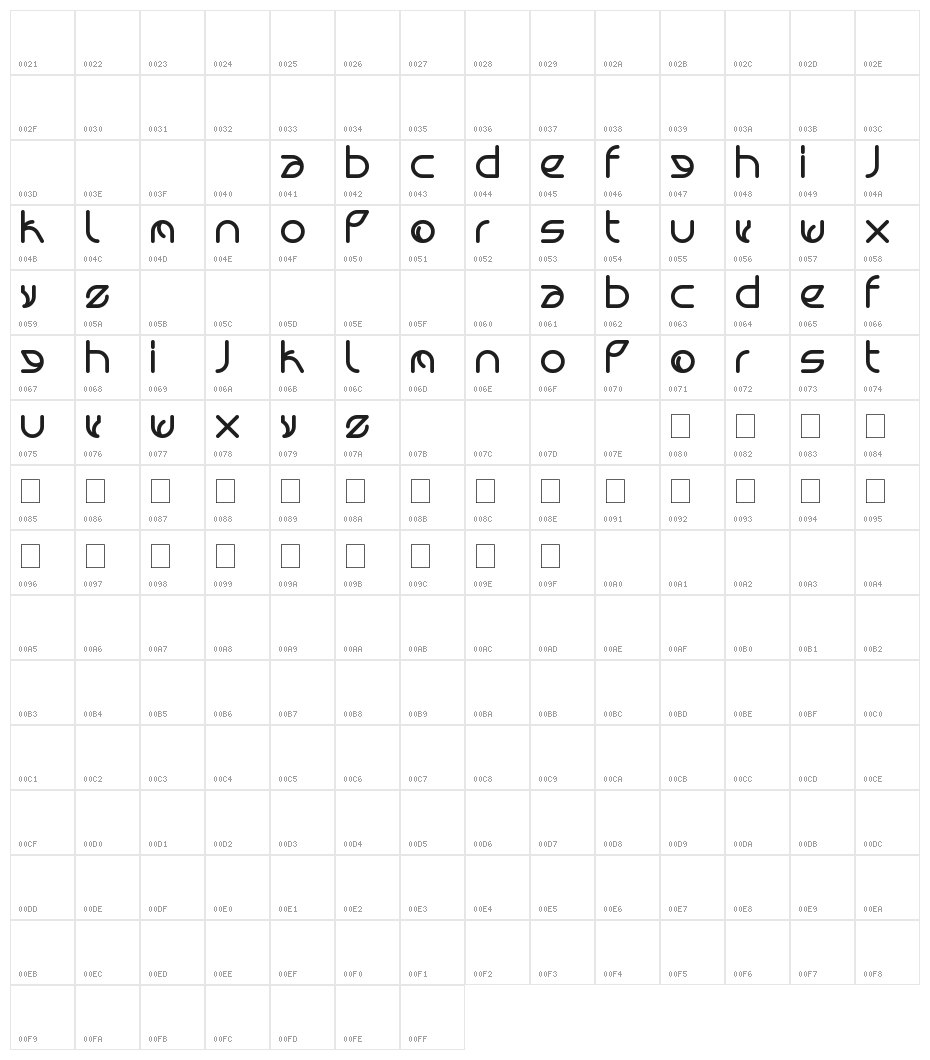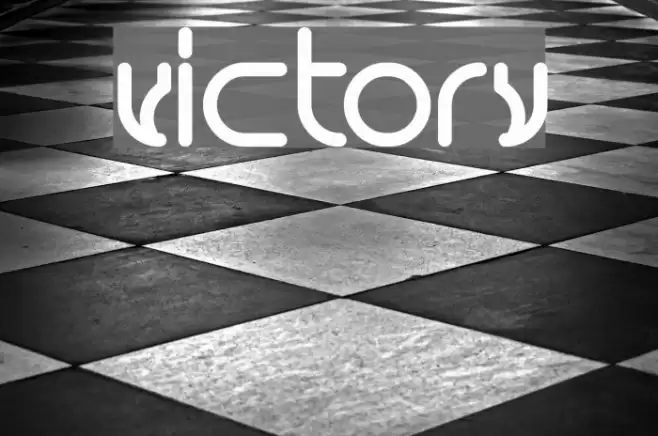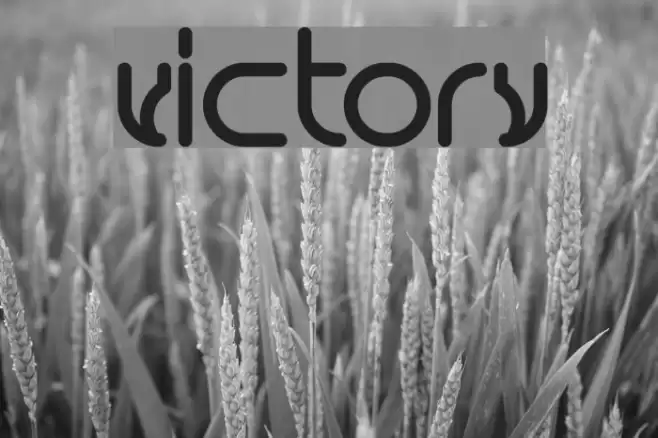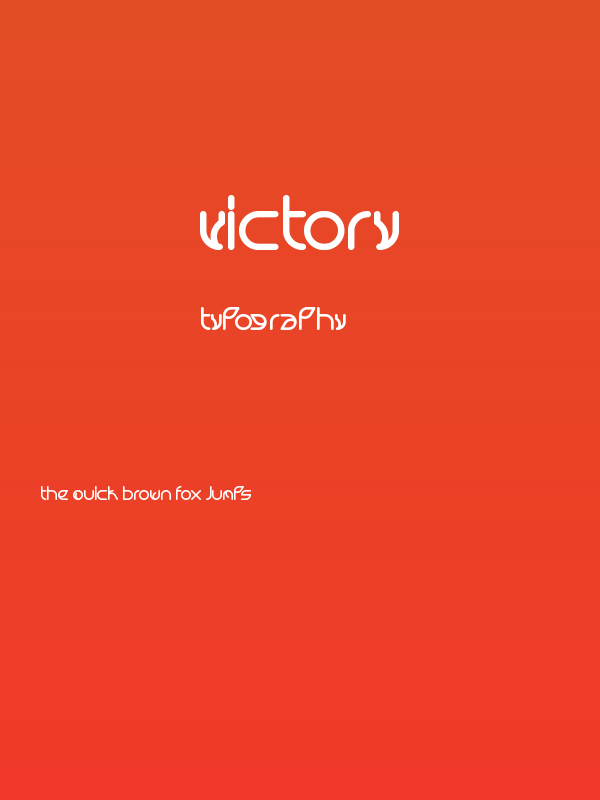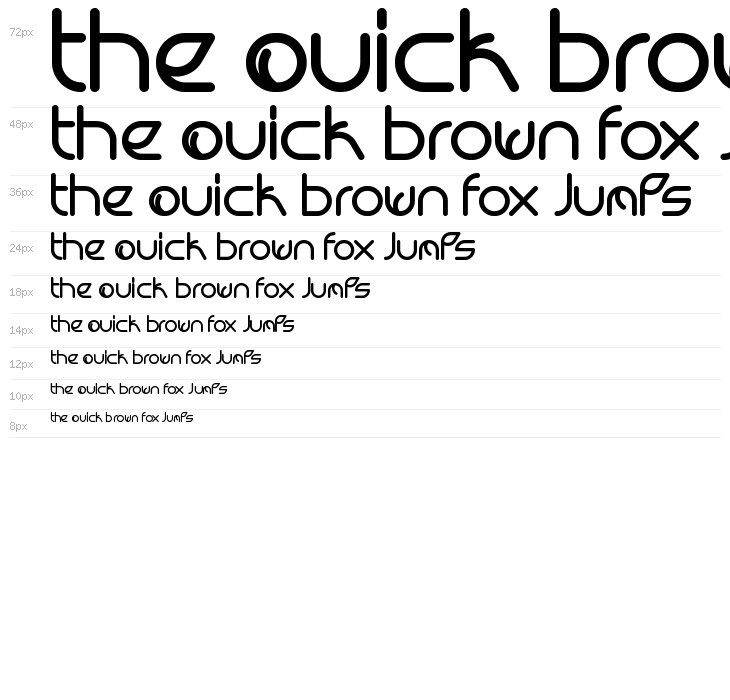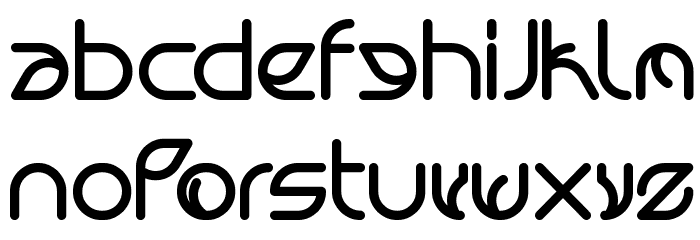
victory Font
victory Description
This font features a modern, geometric design with rounded edges and a futuristic aesthetic. The characters are uniform in height, creating a cohesive and streamlined appearance. The strokes are consistent in width, contributing to a clean and minimalistic look. The unique design of certain letters, such as 'a', 'g', and 'p', adds a distinctive flair, making it stand out in display settings. The overall style is sleek and contemporary, suitable for projects that require a forward-thinking and innovative feel.
| Use Case | Headlines, Logos, Display text |
| Proposed Projects | Ideal for technology branding, futuristic posters, digital interfaces, and modern advertising campaigns. |